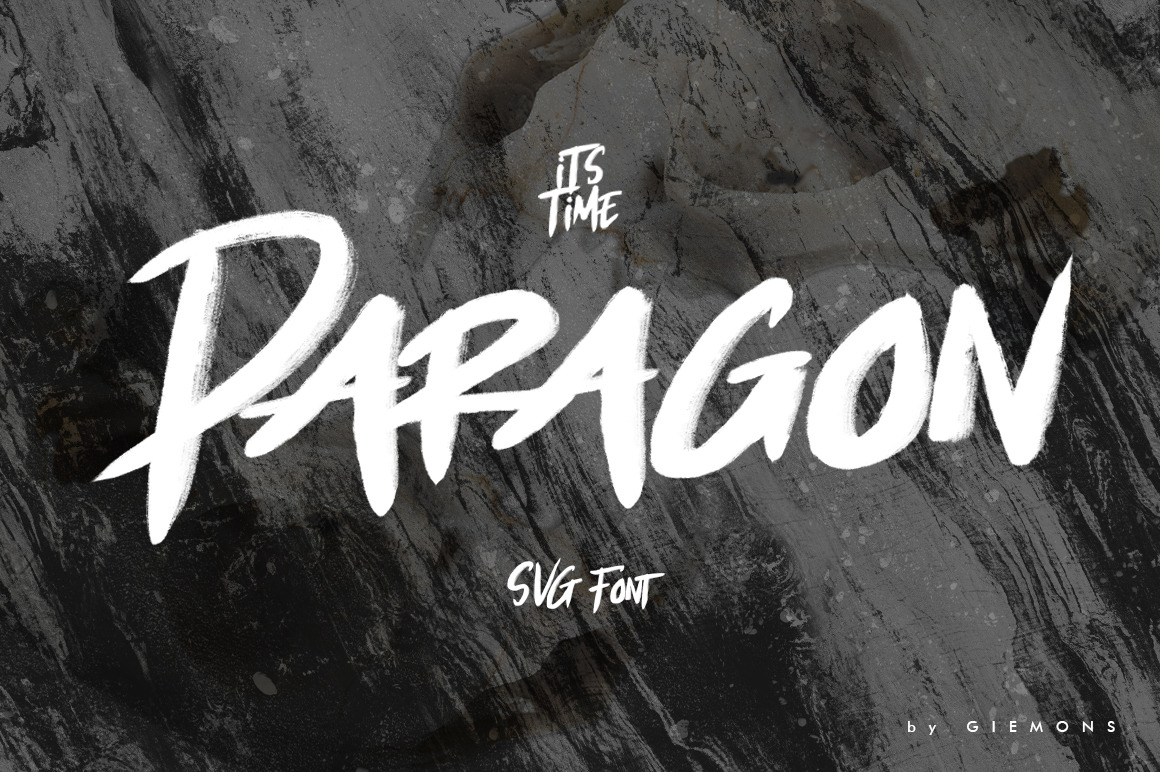
Paragon SVG Font
a Paragon is unique font with Open Type SVG Font. Can make it easier to convey the message in your design. Use for awesome display, labeling, clothing, movie sceen, poster, movie title, gigs, album covers, logos, and much more.